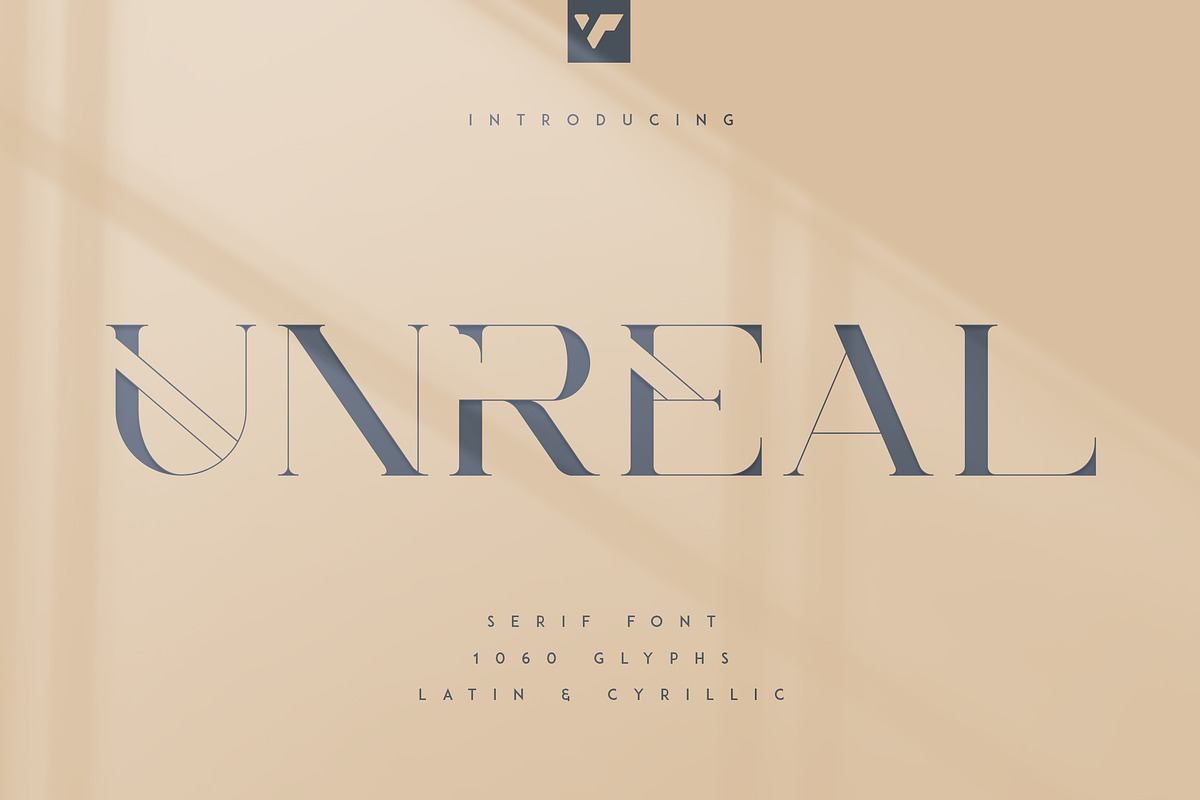
Make a striking statement with Unreal Serif Font - Latin & Cyrillic Free Download. This versatile serif typeface is designed to combine traditional elegance with a modern twist, offering a clean and bold appearance. Perfect for editorial design, branding, packaging, headlines, and high-end digital content, this font includes both Latin and Cyrillic characters for global versatility.
Unreal Serif features strong serifs, high contrast, and a timeless aesthetic, making it ideal for projects that require sophistication and readability. It includes uppercase and lowercase letters, numerals, punctuation, and multilingual support, offering flexibility for testing in various design layouts.